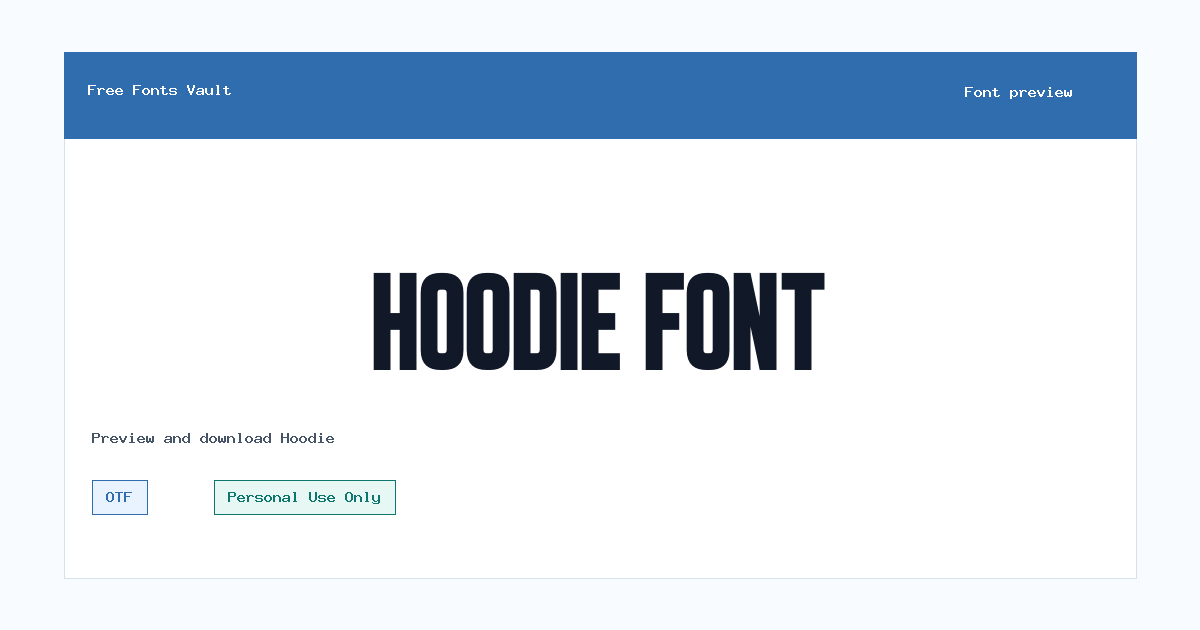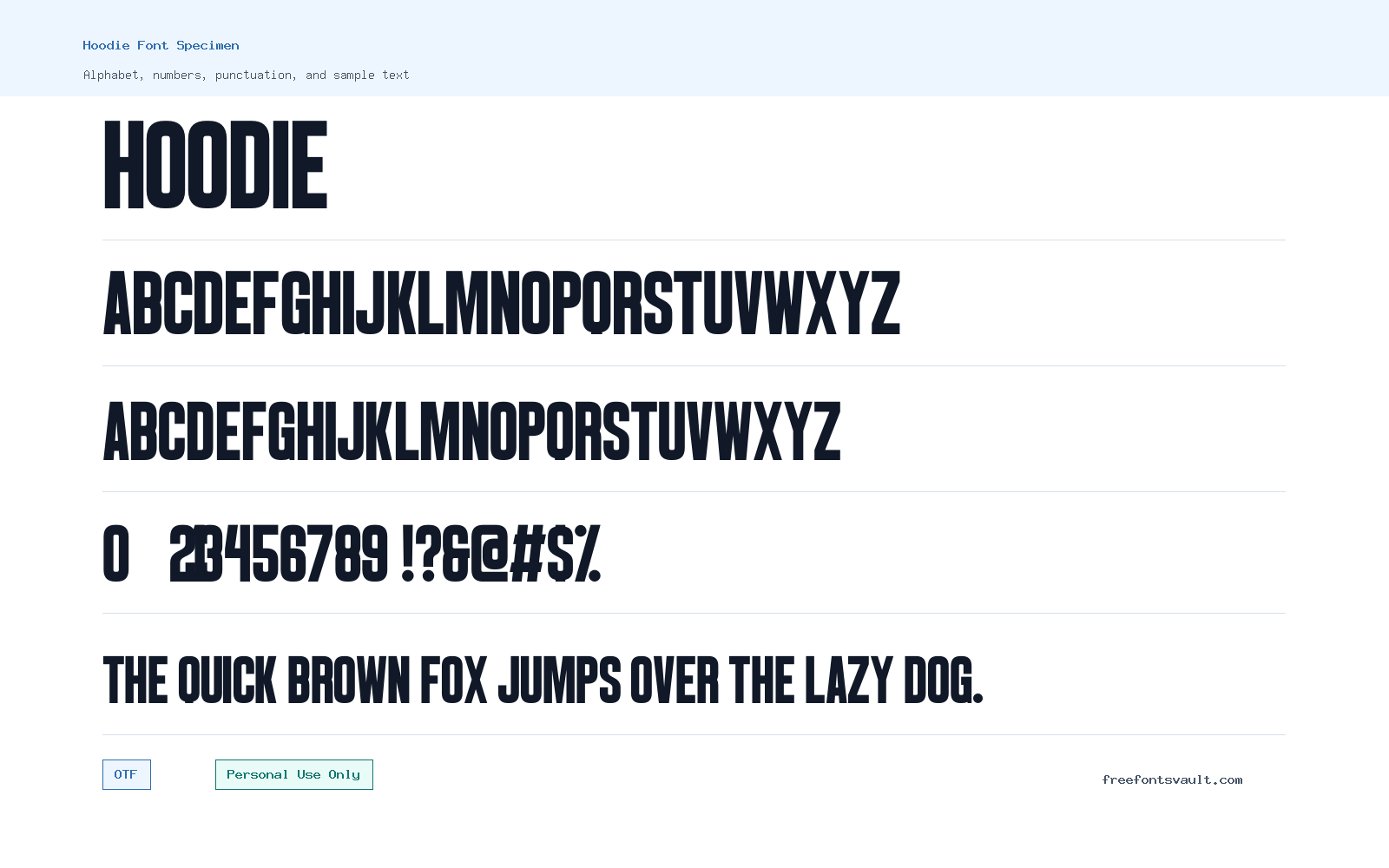
Hoodie
- Designer Muhammad Rizki Utomo
Hoodie font.
Hoodie is a bold condensed sans serif display font with a tall, packed look. It works best when you need short words to feel heavy, direct, and easy to spot in a preview.
About Hoodie Font
Hoodie Regular has a narrow, upright structure with thick strokes and tight spacing. The letter shapes feel blocky rather than decorative, so the font is more useful for strong display text than for long reading. In the rendered sample, both uppercase and lowercase typing read with an all-caps feel, which gives words a consistent poster-like rhythm. That makes Hoodie a good candidate for headings, cover text, social graphics, apparel mockups, thumbnails, and bold title treatments where space is limited.
Try Hoodie with short phrases first: one-word logos, two-line poster titles, game-style headings, event names, or product mockups. Its condensed width lets you fit bigger letters into a narrow area, but that same density can make paragraphs tiring to read. For web mockups, use it for hero titles, buttons with very short labels, or section headers, then pair it with a calmer text face for menus, descriptions, and body copy. If you are testing logo ideas, check the word at several sizes and in both light and dark color settings, because tight condensed letters can fill in quickly when scaled down.
- Bold condensed sans serif style with tall, compact letterforms
- Strong all-caps display feel, useful for short titles and branding tests
- Tight spacing that helps large headlines fit into narrow layouts
- Logo concepts and wordmarks for personal projects
- YouTube thumbnails, banners, and social media images
- Streetwear, apparel, sticker, and merchandise mockups
- Bold hero headings in web or app design drafts
Hoodie is credited to Muhammad Rizki Utomo. No foundry name is listed for this font listing.
Use Hoodie where the message is short and the design needs visual weight. Keep tracking and line spacing under control, but avoid squeezing it further because the letters are already narrow. For pairing, choose a simple readable sans serif or neutral serif for body text so Hoodie can stay focused on headlines. In logo work, test tricky letter combinations, repeated vertical strokes, and small sizes before choosing it for a final mark.
What kind of font is Hoodie?
Hoodie is a bold condensed sans serif display font. It is better for titles, posters, logos, and graphics than for long paragraphs.
Who designed Hoodie?
Hoodie is credited to Muhammad Rizki Utomo.
What should I pair with Hoodie?
Pair it with a clean, readable text font. A neutral sans serif works well for body copy, captions, navigation, and supporting information while Hoodie handles the main title.